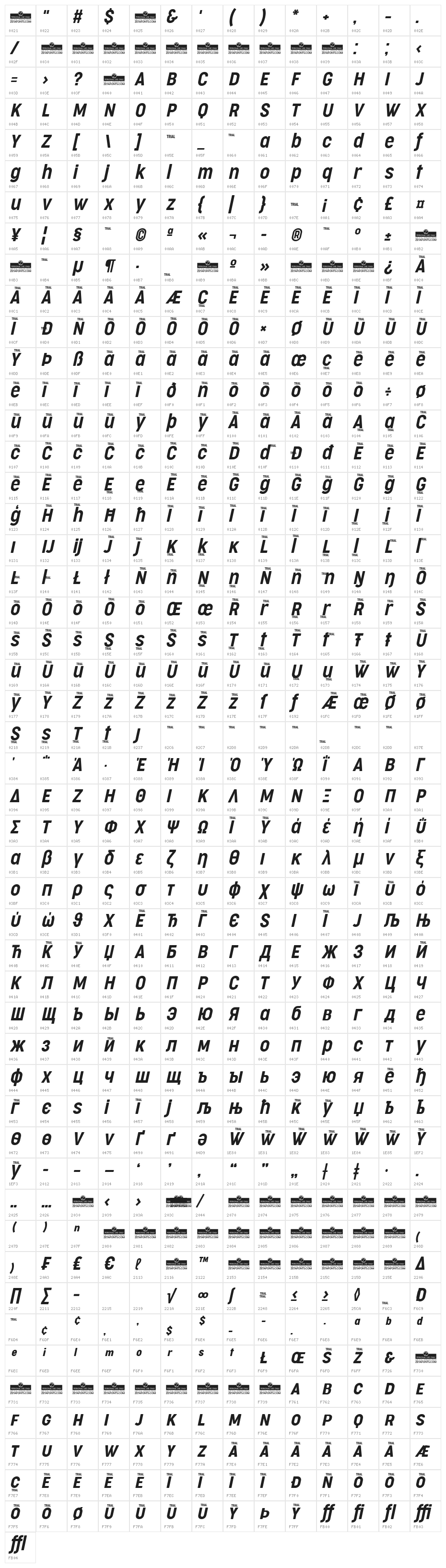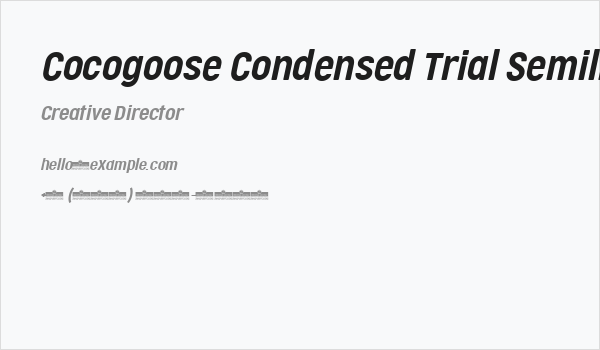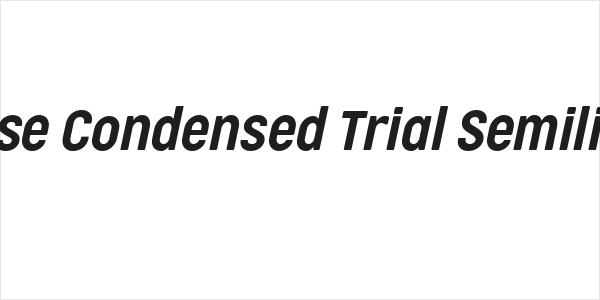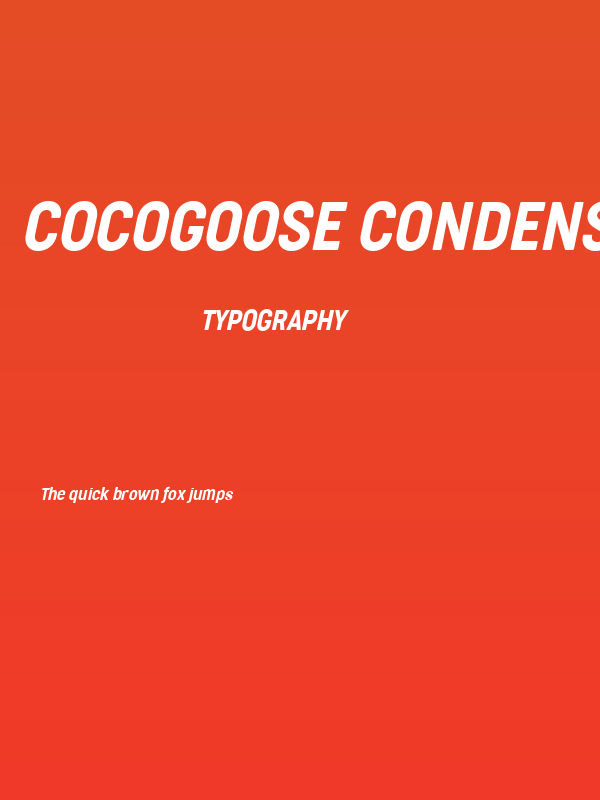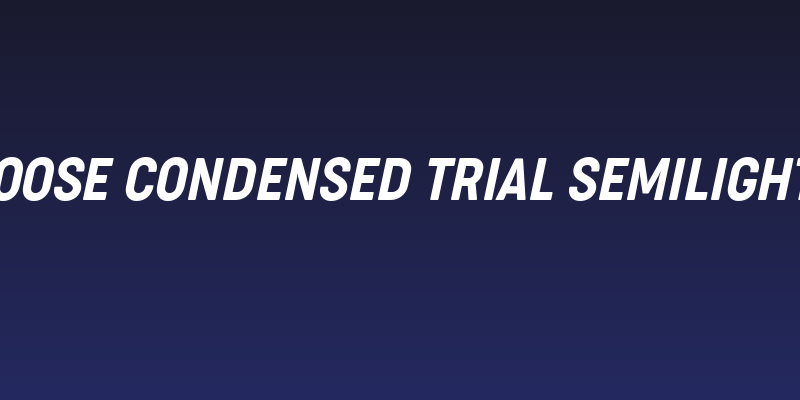
Cocogoose Condensed Trial Semilight Italic Font
Cocogoose Condensed Trial Semilight Italic Description
This font features a modern, sleek design with a condensed structure that gives it a streamlined appearance. The letters are slightly italicized, adding a dynamic and forward-leaning feel. The semi-light weight provides a balance between readability and style, making it suitable for various applications. The characters are well-spaced, ensuring clarity and legibility even at smaller sizes. The font includes a full set of uppercase and lowercase letters, numbers, and a range of special characters, making it versatile for different design needs.